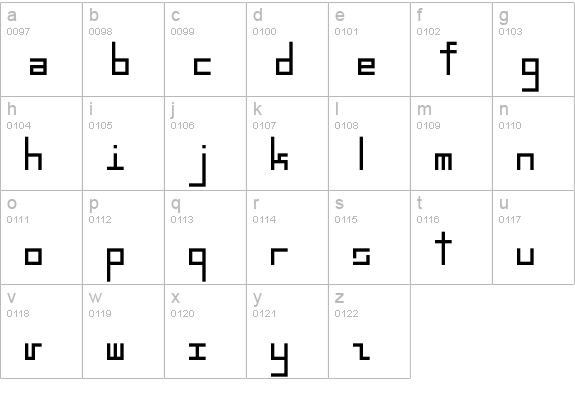
EppsText font is a modern and sleek typeface that exudes elegance and sophistication. With its clean lines and stylish design, this font is perfect for a wide range of projects, from branding to editorial design. The versatility of EppsText font makes it a must-have for designers looking to elevate their work to the next level. And the best part? EppsText font is available for free download at FontsMarket.com. That's right, you can get your hands on this stunning font without spending a dime. So why wait? Head over to FontsMarket.com and download EppsText font today to add a touch of class to your designs.